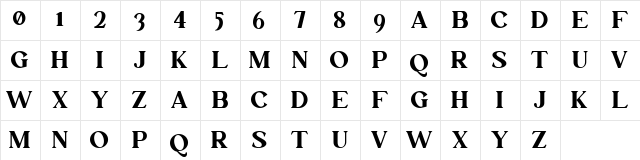
Mullion Regular
| Foundry | Angin Studio |
| Designer | Angin Studio |
Design Context for Mullion Typeface
Mullion is a composed and adaptable typeface that performs quietly and consistently across a wide range of design contexts.